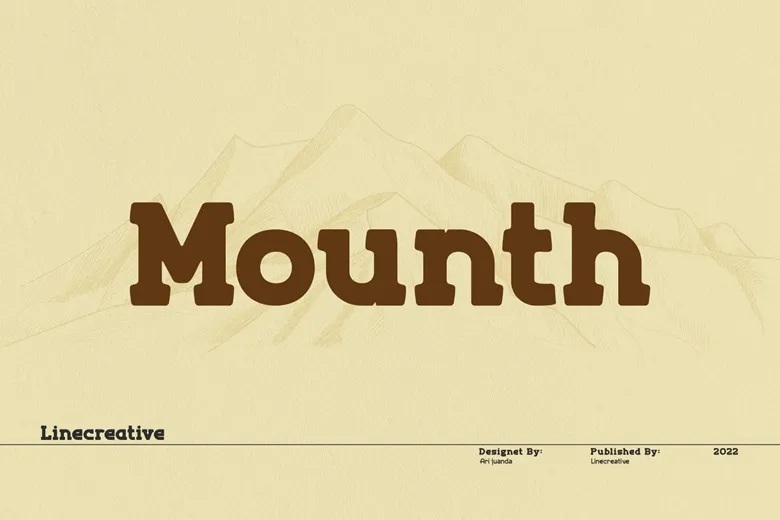
Mounth Font
Mount is a bold slab-serif typeface for titling, captions, and logos. This font is similar to the Simple Note font, but it features rounded and rough shapes.
Mounth Slab Serif Font